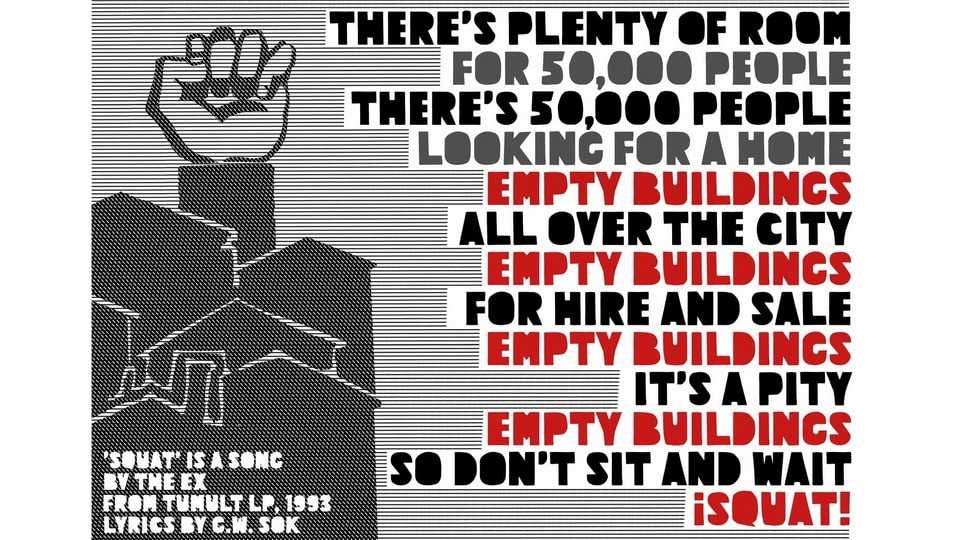
Download Squat font, a chunky typeface with some sharp points, adapted from a flyer about housing actions from the Italian left wing group Potere Operaio from the early 1970s.